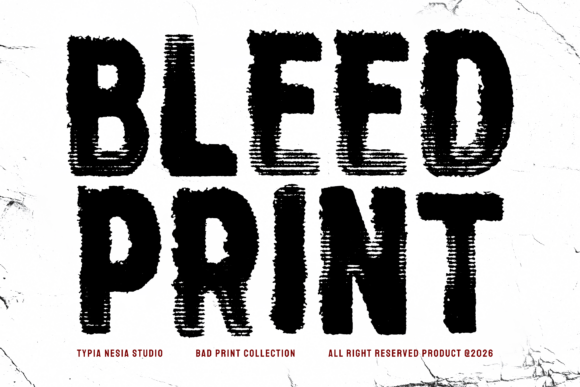
That’s when I stumbled upon Bleed Print, a bold distressed sans serif font that instantly caught my attention. Its rough edges, grunge details, and bold letterforms screamed “this is it!” I knew I had found the perfect fit for my project.
First Impressions: A Love Letter to Bleed Print
So, what makes Bleed Print so special? Here are a few things I love about this font:
- ✨ Rugged and masculine: Bleed Print exudes a raw, authentic vibe that’s perfect for projects that need a bold statement.
- ✅ Distressed effect: The font’s worn, vintage look captures the charm of old printing techniques, adding a touch of nostalgia to any design.
- 💯 Versatile: From logo design to posters, packaging, and branding, Bleed Print can be used in a variety of projects.
A Few Quirks to Consider
While Bleed Print is an amazing font, it’s not without its limitations. Here are a few things to keep in mind:
- ⚠️ Legibility at small sizes: Due to its distressed effect, Bleed Print can be tricky to read at small font sizes. Make sure to test it out before committing to a specific size.
- 🤔 Limited OpenType features: While Bleed Print has some great stylistic alternates, it’s not as feature-rich as some other fonts on the market.
The Story Behind Bleed Print
So, what inspired the creation of Bleed Print? According to the designer, the font was inspired by vintage ink bleed, worn stamps, and imperfect print textures. The goal was to create a font that captured the raw, authentic feel of old printing techniques, while still being bold and attention-grabbing.
| What is the best use for Bleed Print? | Bleed Print is perfect for projects that need a bold, rugged, and retro look, such as logo design, posters, packaging, and branding. |
| Is Bleed Print available in different weights? | Currently, Bleed Print is available in a single weight. However, the designer may release additional weights in the future. |